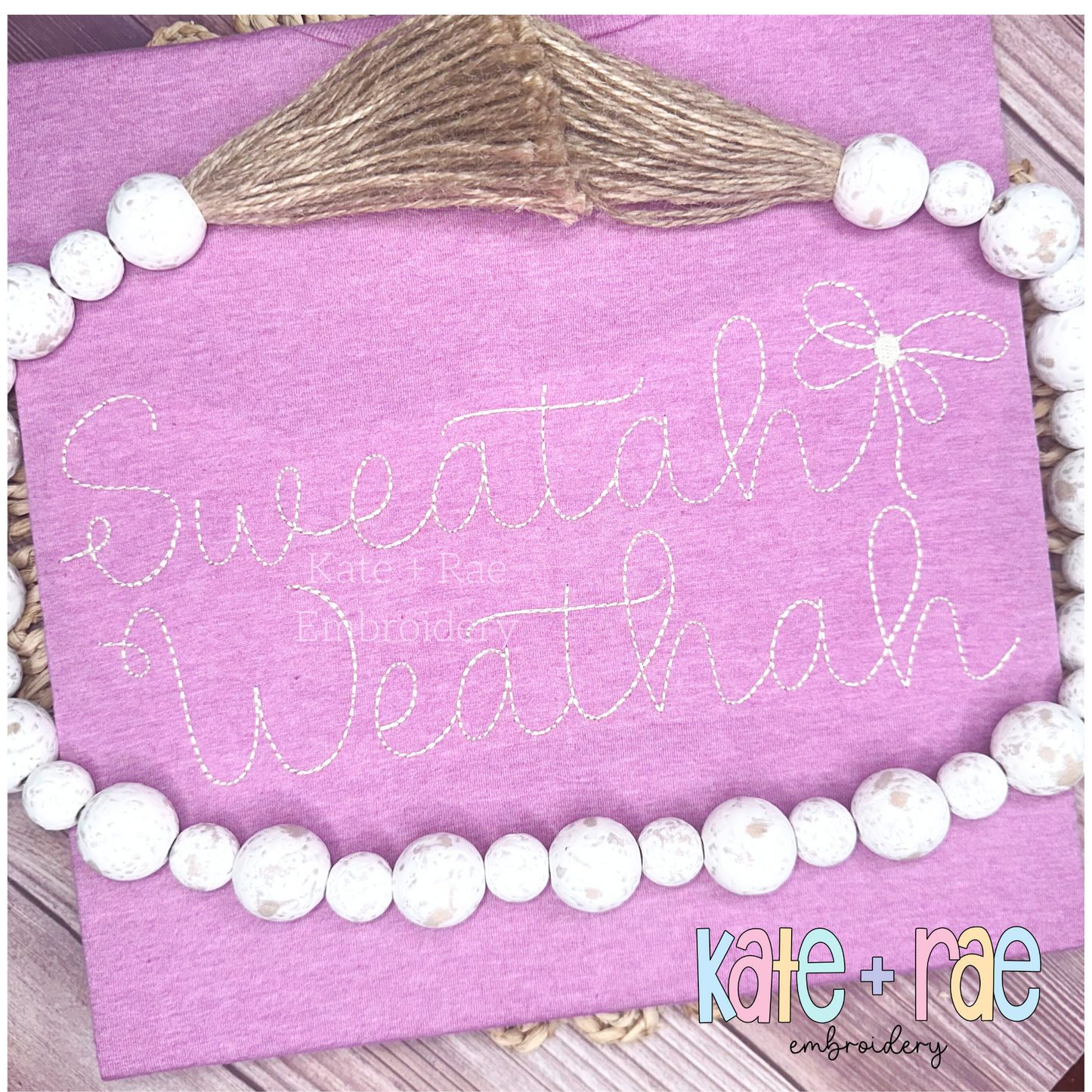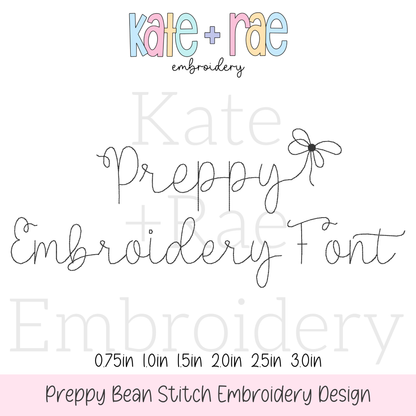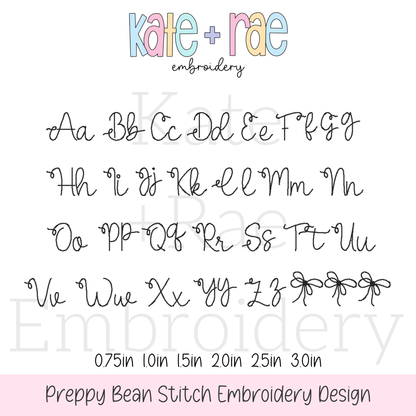
Preppy Bean Stitch Embroidery Font
Meet Preppy, a bean stitch embroidery font with sweet bow options! Personalize names, monograms, sweatshirts, and kids' outfits.